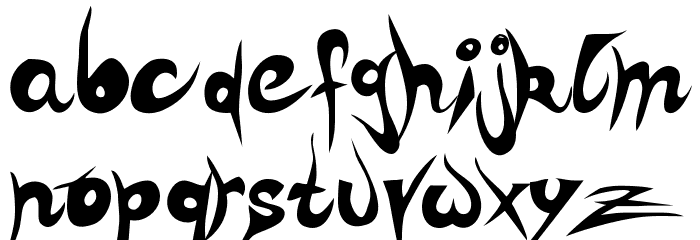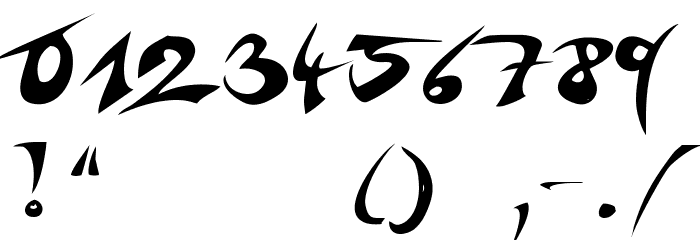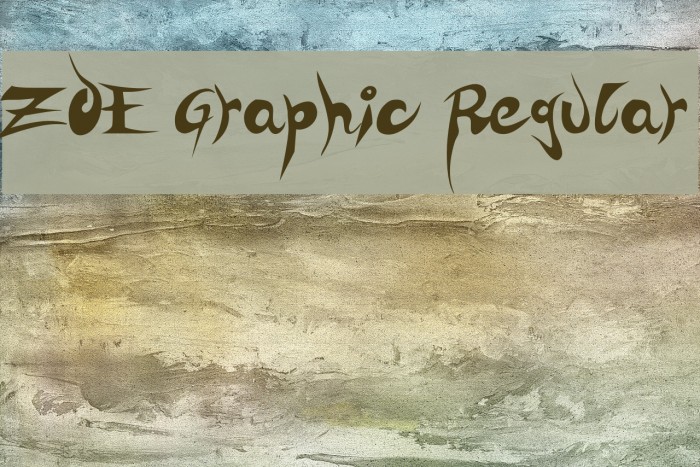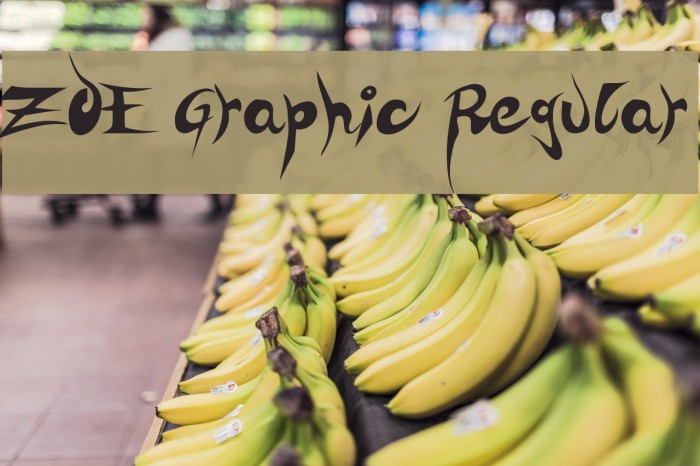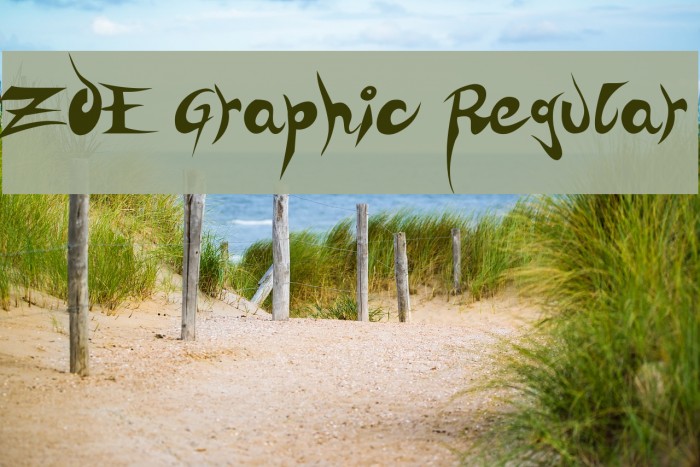
ZOE Graphic Regular Font
This font features a highly stylized and edgy design, characterized by sharp, angular lines and dramatic curves. The uppercase letters exhibit a bold and aggressive style, with exaggerated serifs and pointed terminals that give a sense of motion and intensity. The lowercase letters maintain the same dynamic energy, with unique shapes that add to the font's distinctiveness. Numbers and special characters follow this theme, ensuring consistency throughout the typeface. The overall appearance is striking and modern, making it suitable for projects that require a bold statement.
A bold, edgy font with sharp, angular lines and dramatic curves.
- Proposed Projects: Ideal for music album covers, video game titles, posters, and branding that requires a bold, modern look.